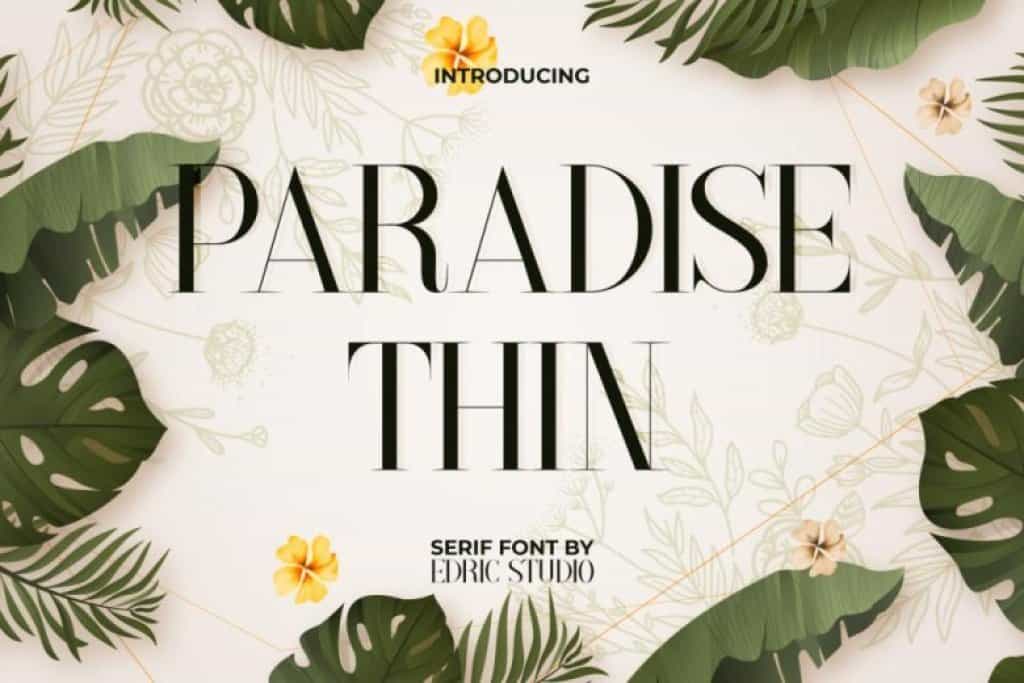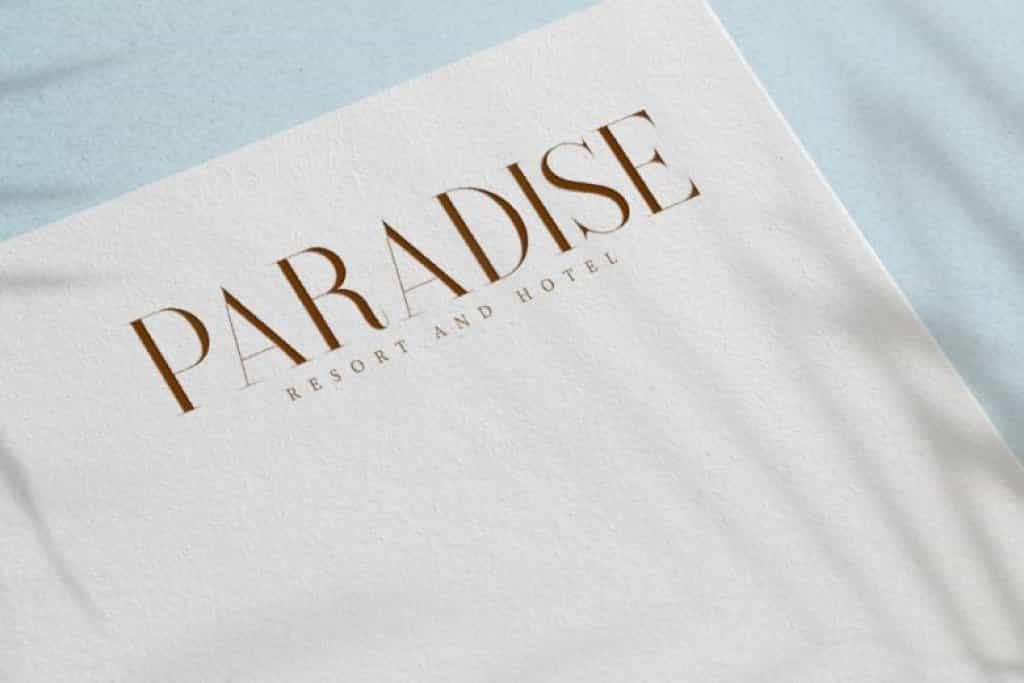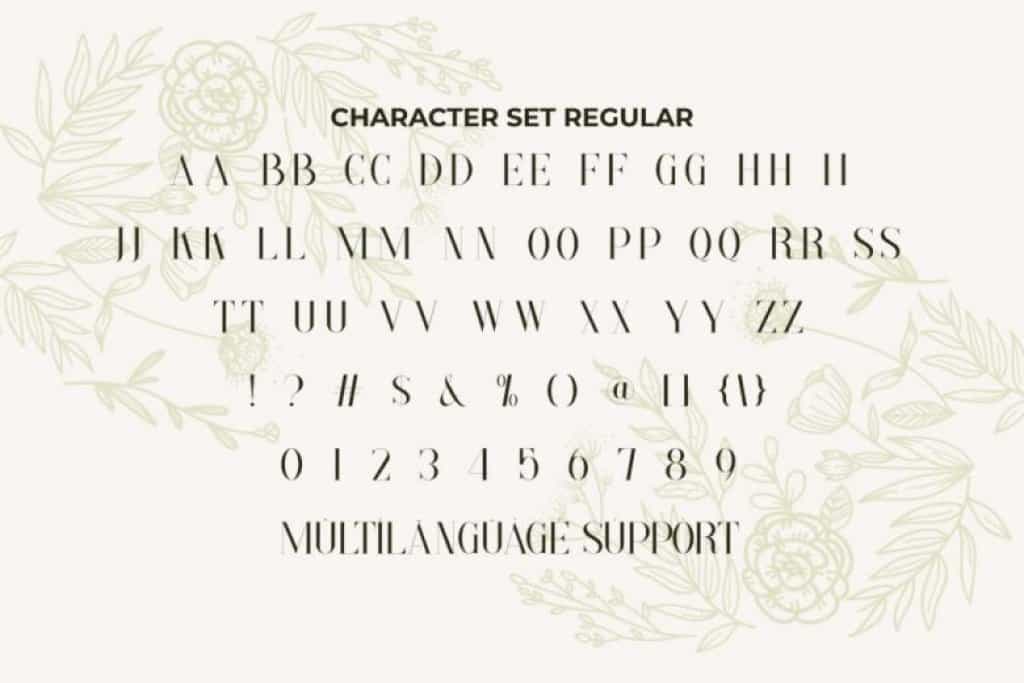
Paradise Thin by EdricStudio is an elegant serif typeface with a contemporary and sleek appearance, designed by EdricStudio. The typeface features stunning thin and bold shapes, making it stand out as something special and modern. Perfect for boutique craft, fashion and homeware industries as well as hotels, resorts, journalism, restaurants, publishing writers etc!